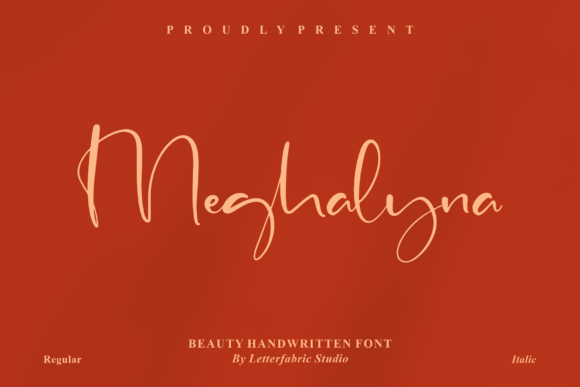
Step into the enchanting realm of Meghalyna Font, a captivating script masterpiece designed to serenade your digital creations. Meghalyna's graceful strokes are like a symphony of ink, transforming words into vibrant melodies. It's the perfect harmony for any project yearning for a touch of elegance and charm.
Meghalyna's versatility is a symphony of creativity, seamlessly adapting to a diverse orchestra of projects. Logos, branding campaigns, homeware designs, product packaging, mugs, and more; Meghalyna dances across mediums like a virtuoso, adding a touch of sophistication to every endeavor.
Picture your logo adorned with Meghalyna's graceful curves, enchanting customers with its timeless beauty. Branding projects take on a life of their own, as Meghalyna weaves a story of elegance and distinction. Homeware designs infused with Meghalyna's charm become heirlooms, cherished for their timeless appeal.
Products adorned with Meghalyna's artistry become more than mere objects; they become expressions of individuality. Mugs whisper sweet nothings with every sip, while quotes and posters emblazoned with Meghalyna's strokes inspire and uplift. Shopping bags transform into fashion statements, and t-shirts become canvases for self-expression.
Meghalyna's allure extends to book covers, name cards, invitation cards, and greeting cards, adding a touch of sophistication to every correspondence. Labels adorned with Meghalyna's script elevate products to new heights of desirability, while photography takes on an ethereal quality when paired with its enchanting strokes.
Watermarks, special events, and all your other treasured projects are elevated by Meghalyna's presence, like a conductor leading an orchestra of creativity. Experience the magic of Meghalyna Font today, and let your projects sing.